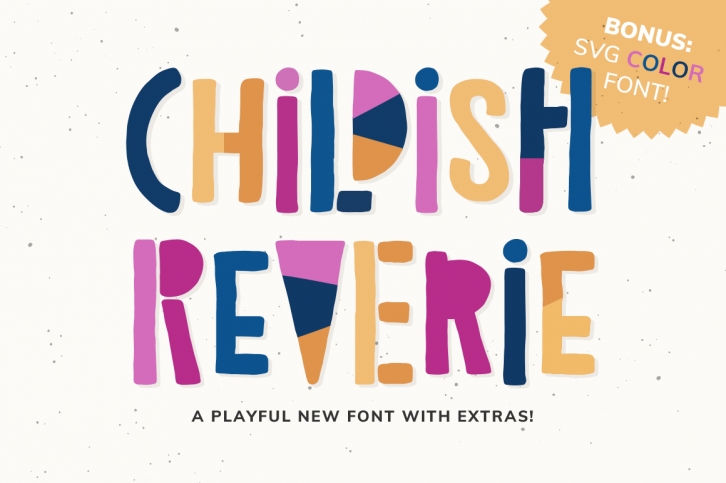
Childish Reverie is a trendy and unique font with an authentic style. It was designed by Denise Chandler and it's a great choice for creative people who need such a font. It was released on April 26, 2017 and the file size is 2.84 MB. Childish Reverie will add an organic vibe to any design idea!